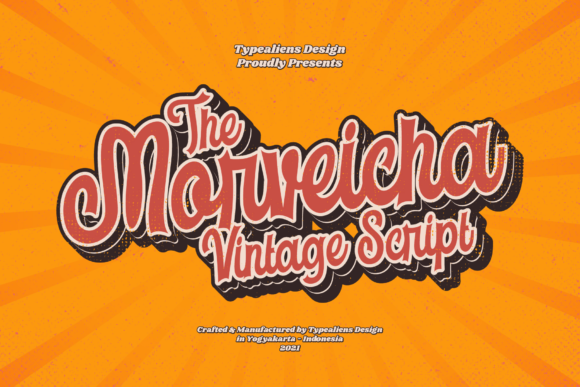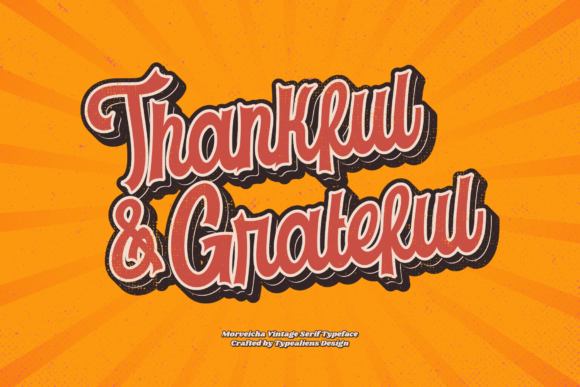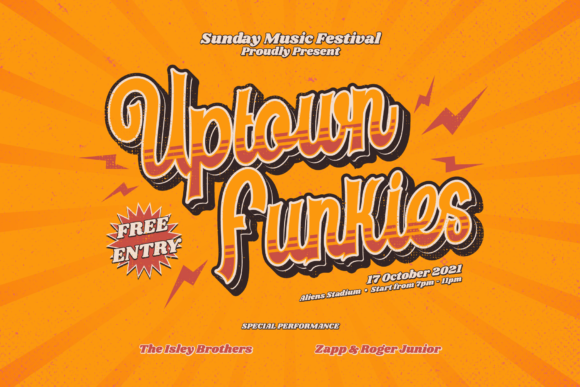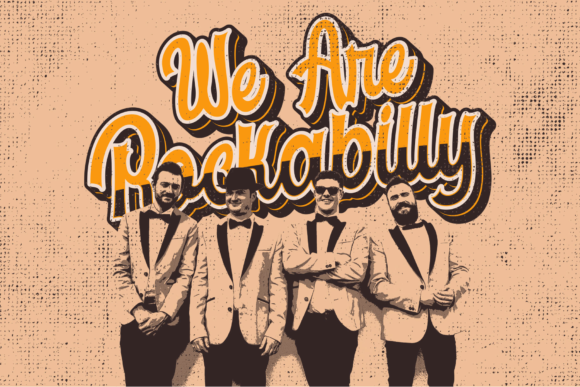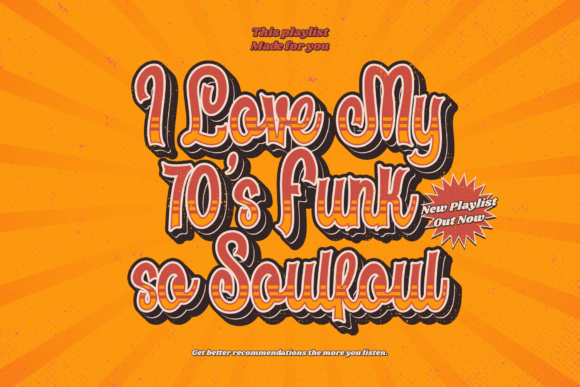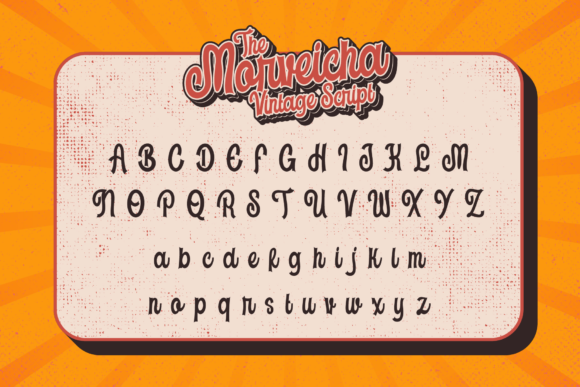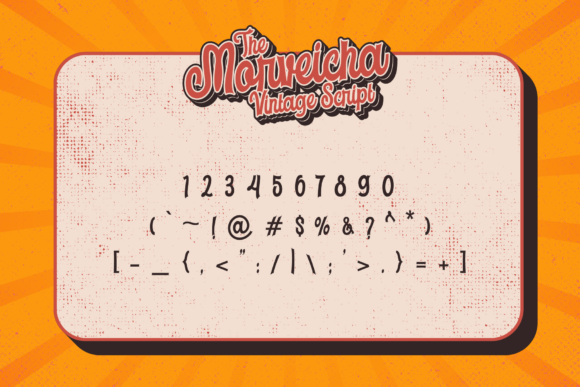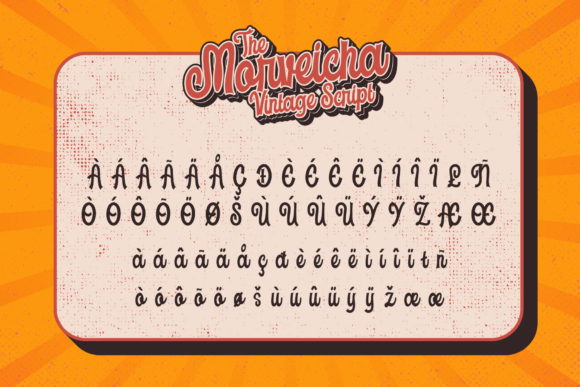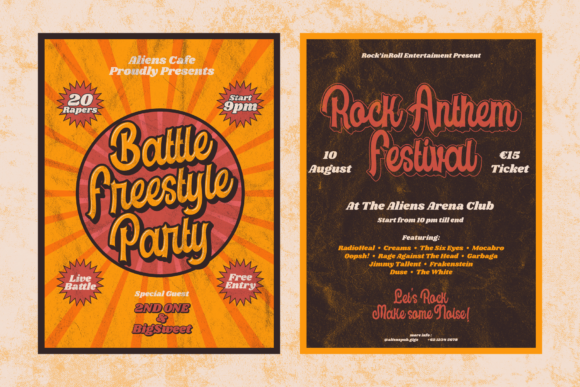
Morveicha Font
About Morveicha Font
Morveicha is a gorgeous and bold handwritten font, crafted to give your headlines and logotype projects a retro touch. This font reads as strong, confident, and dynamic and can add tons of nostalgic character to your designs.